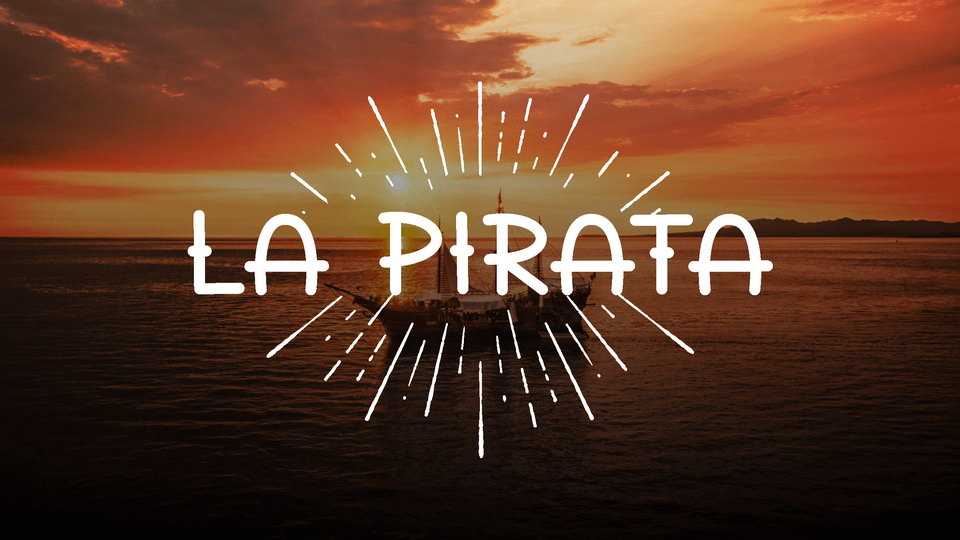
Download La Pirata font, a handwritten typeface, an all caps with different height between uppercase and lowercase, with adventurous spirit of a pirate. The lowercase will give you an expanded version of the font.